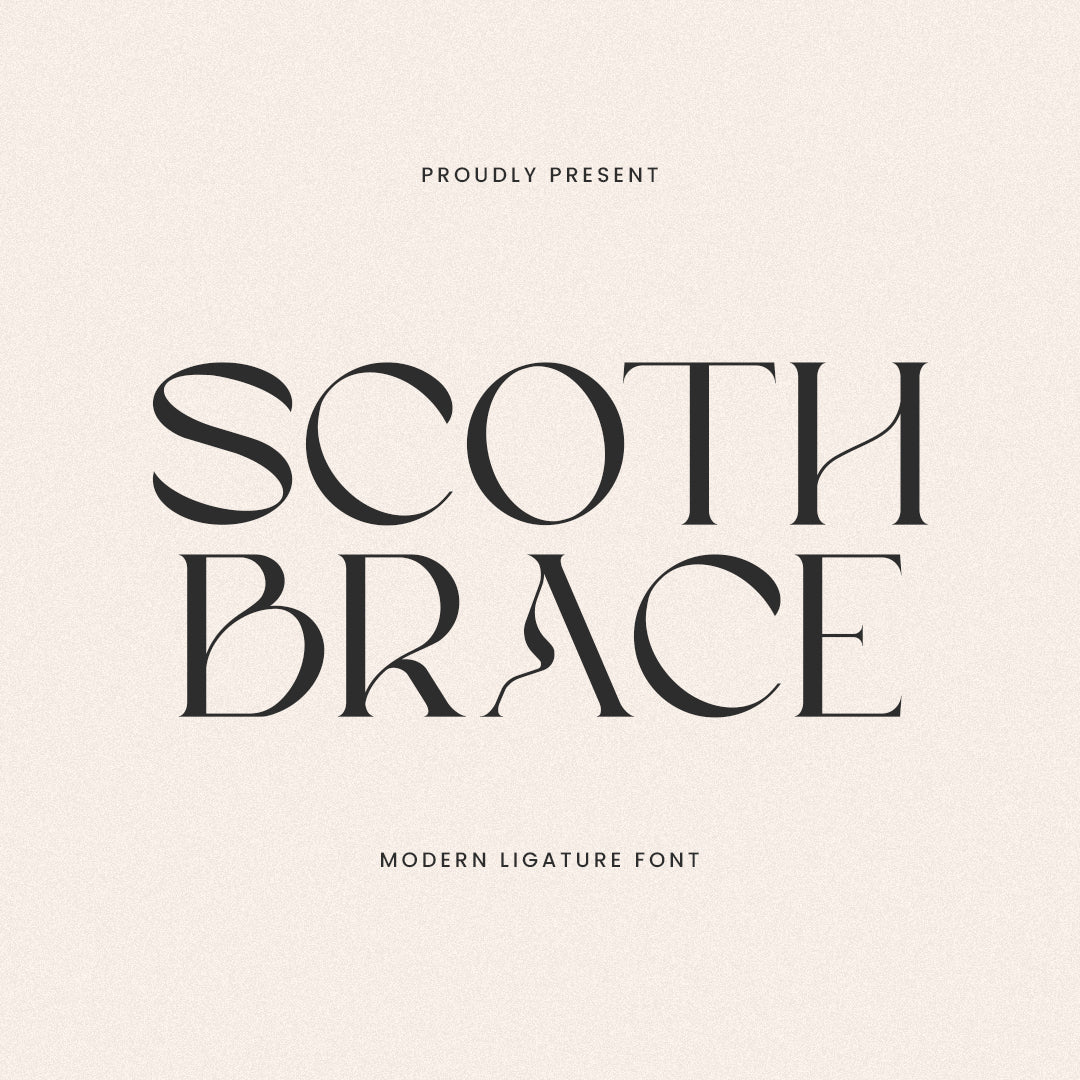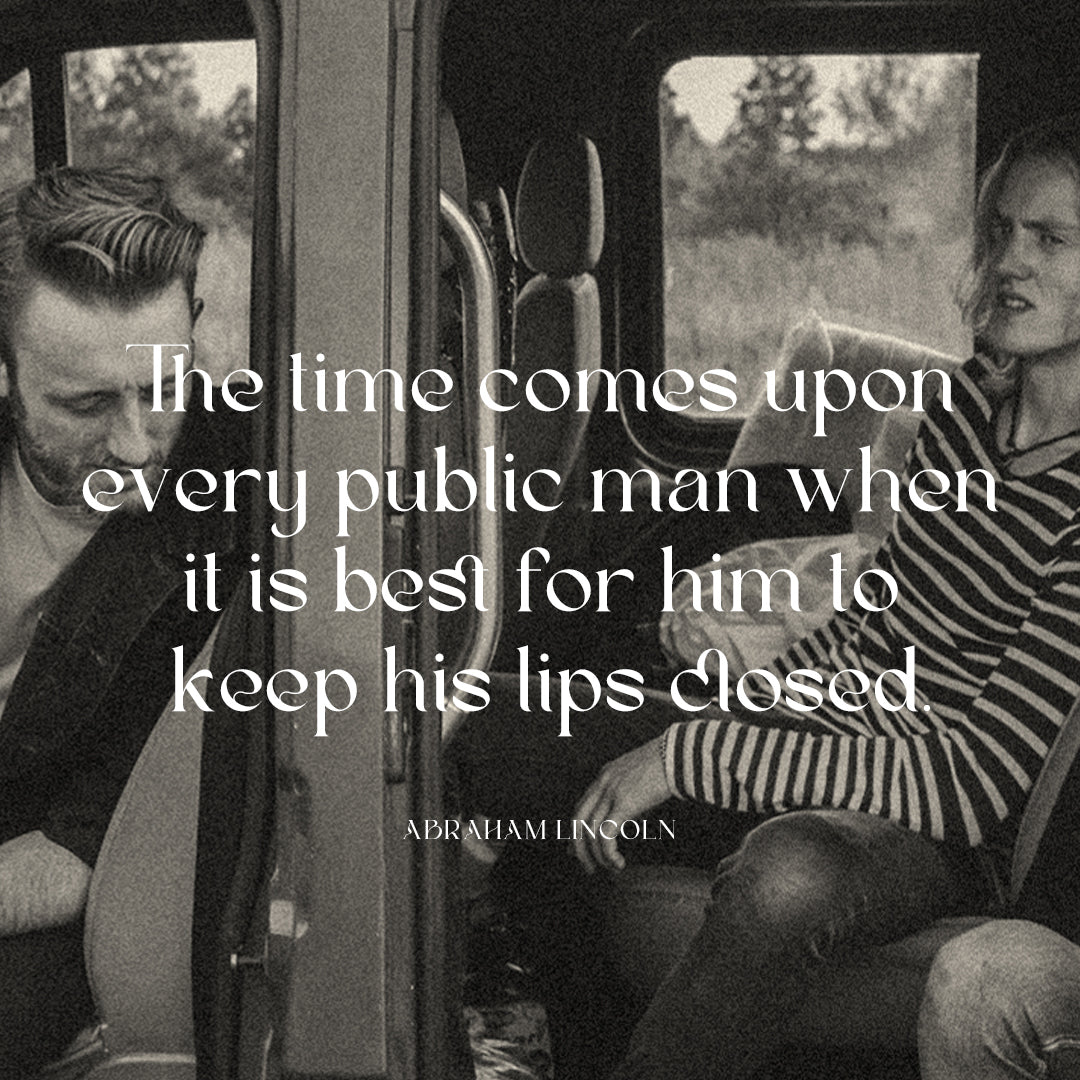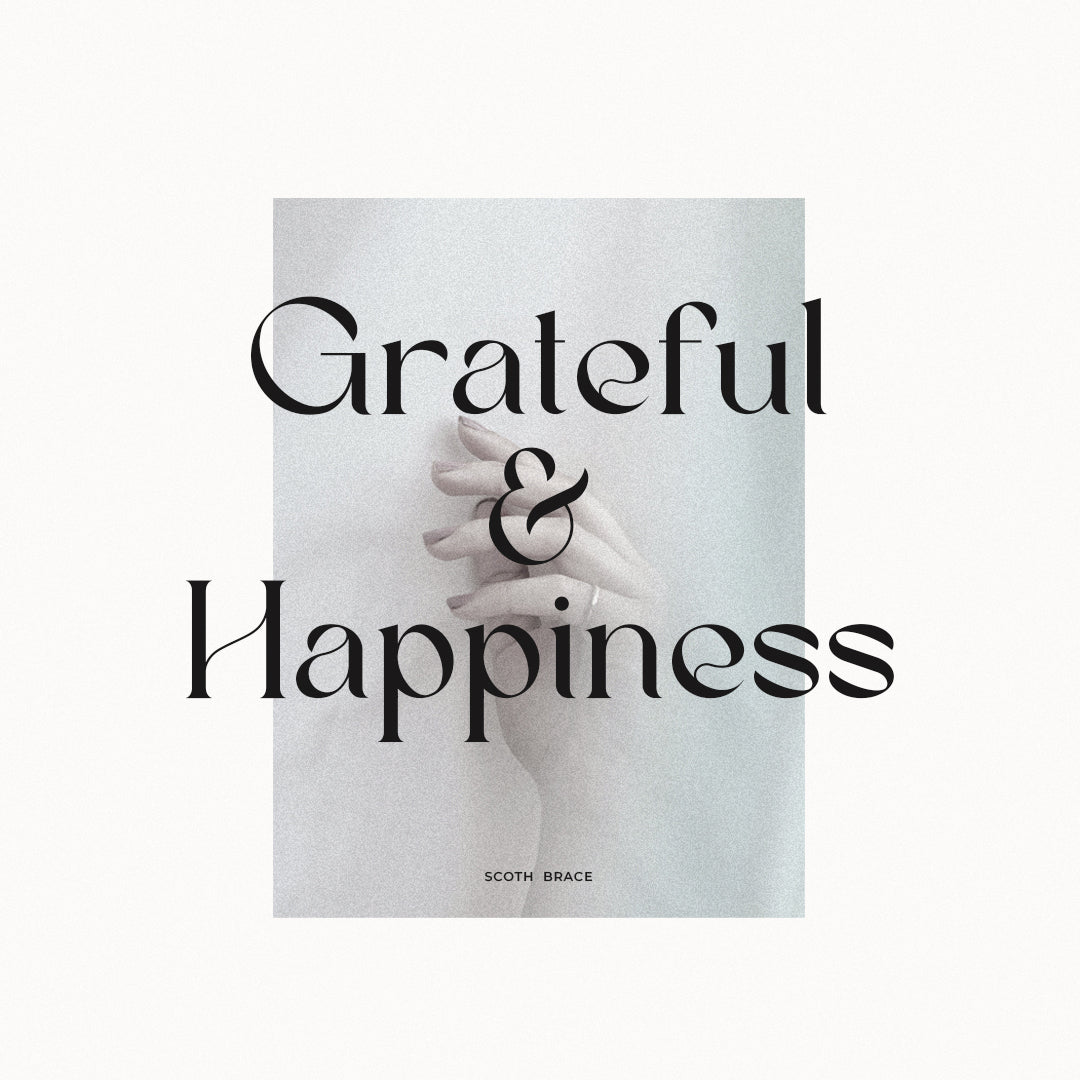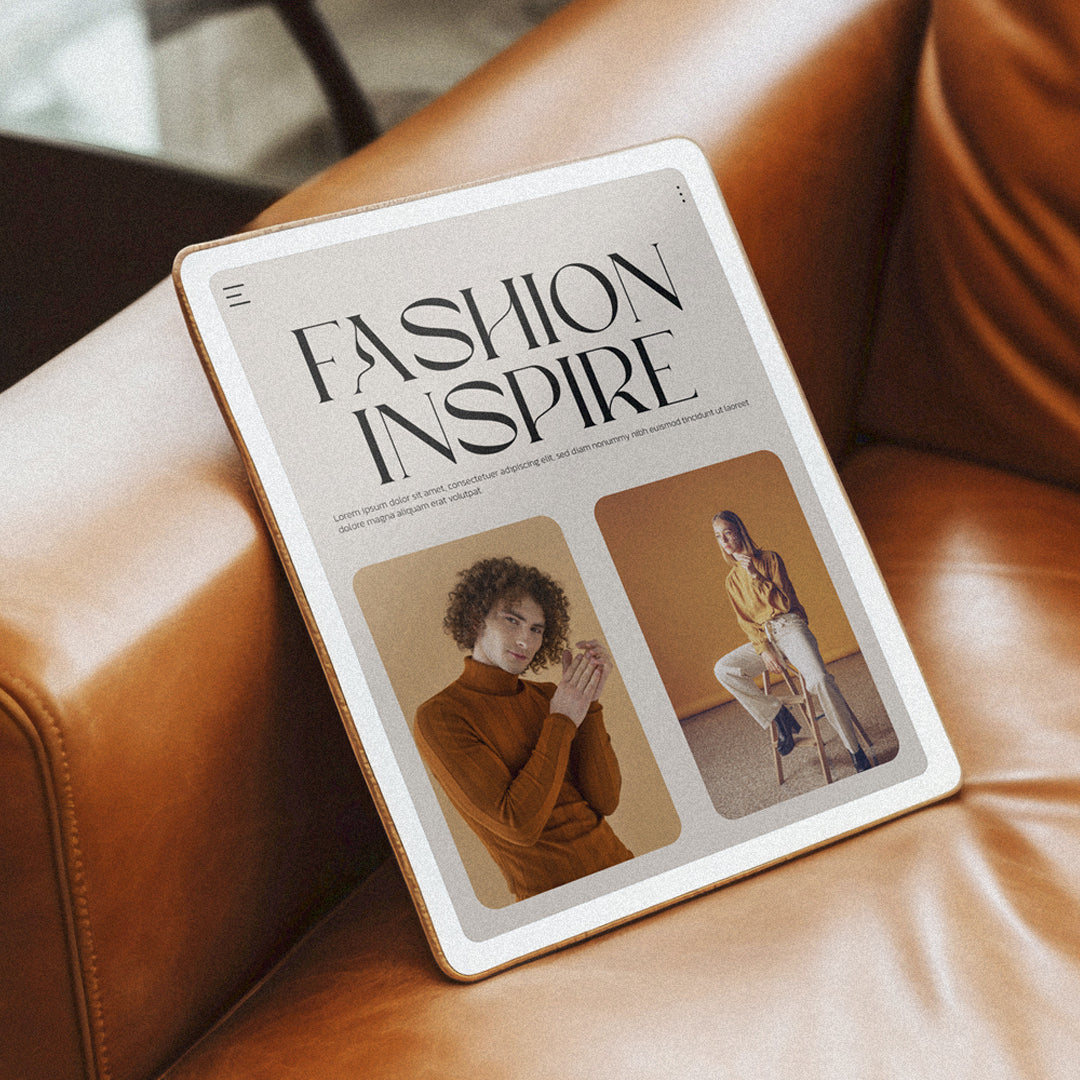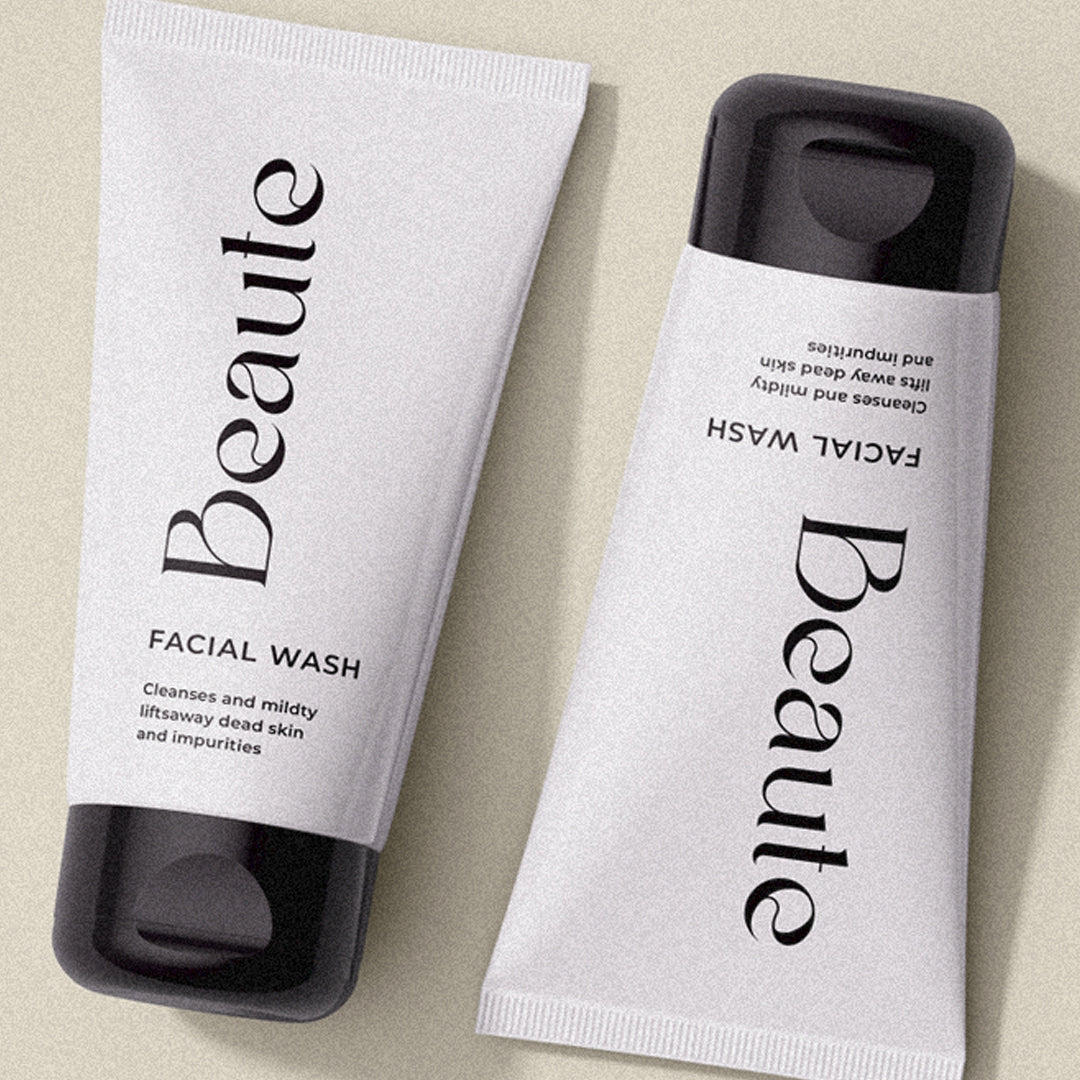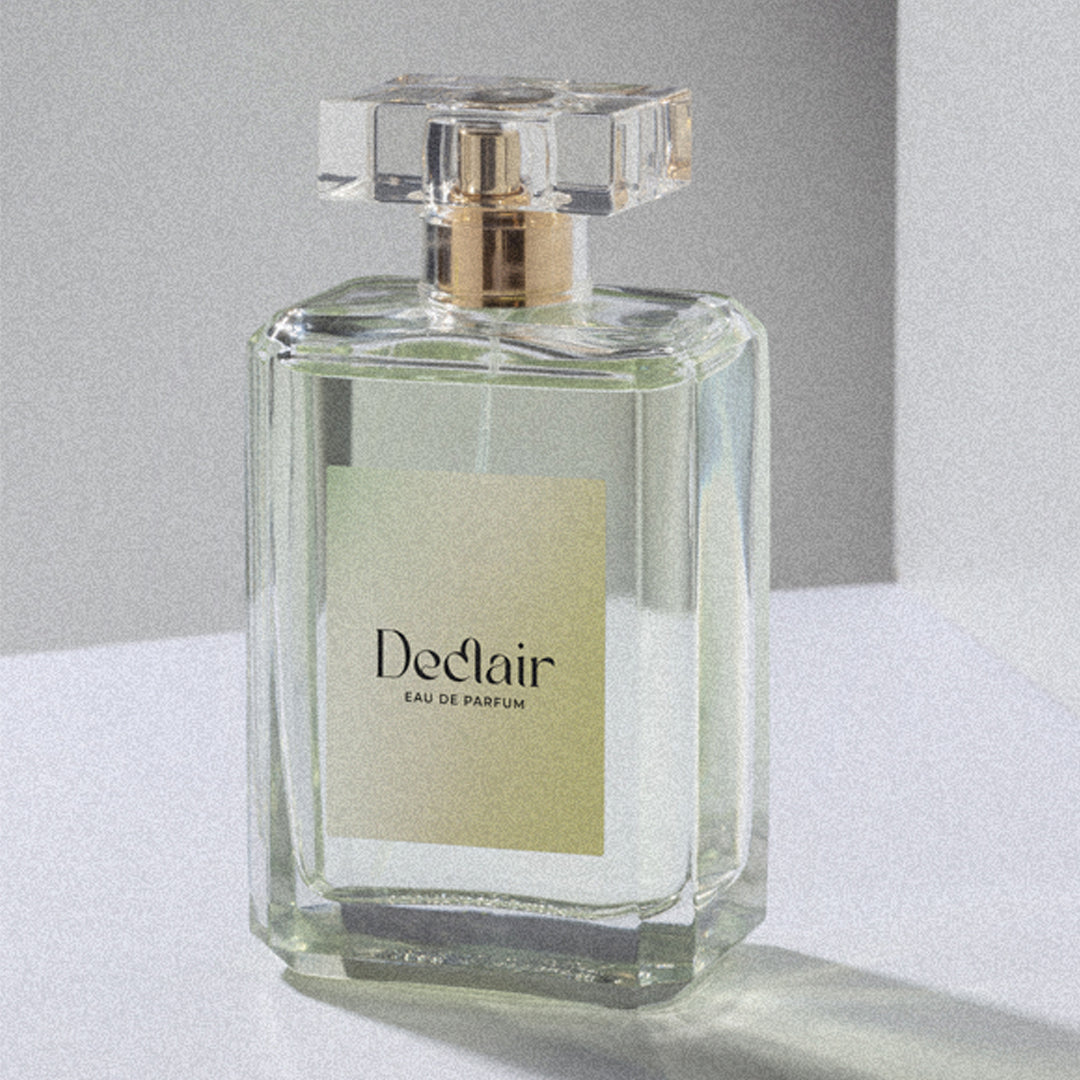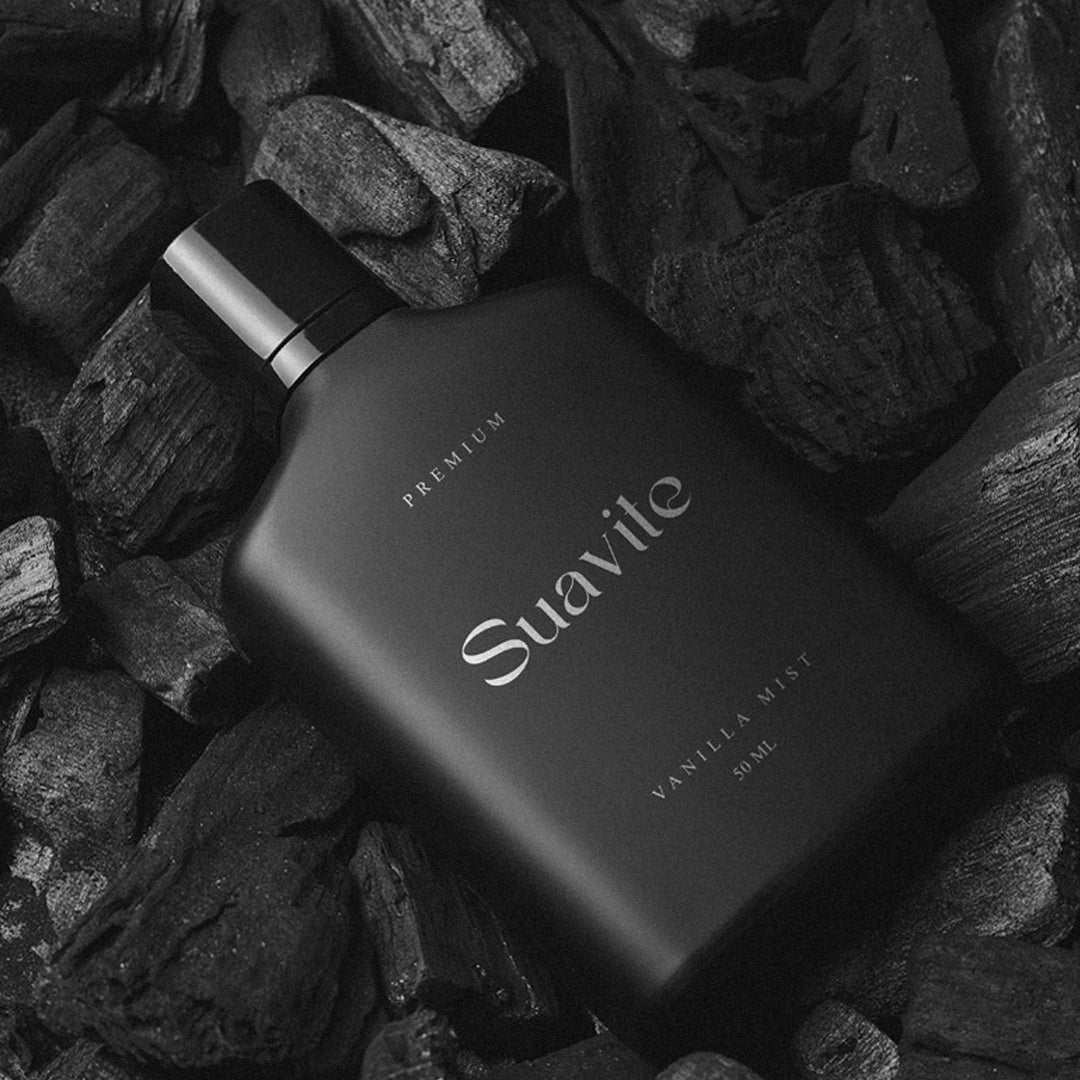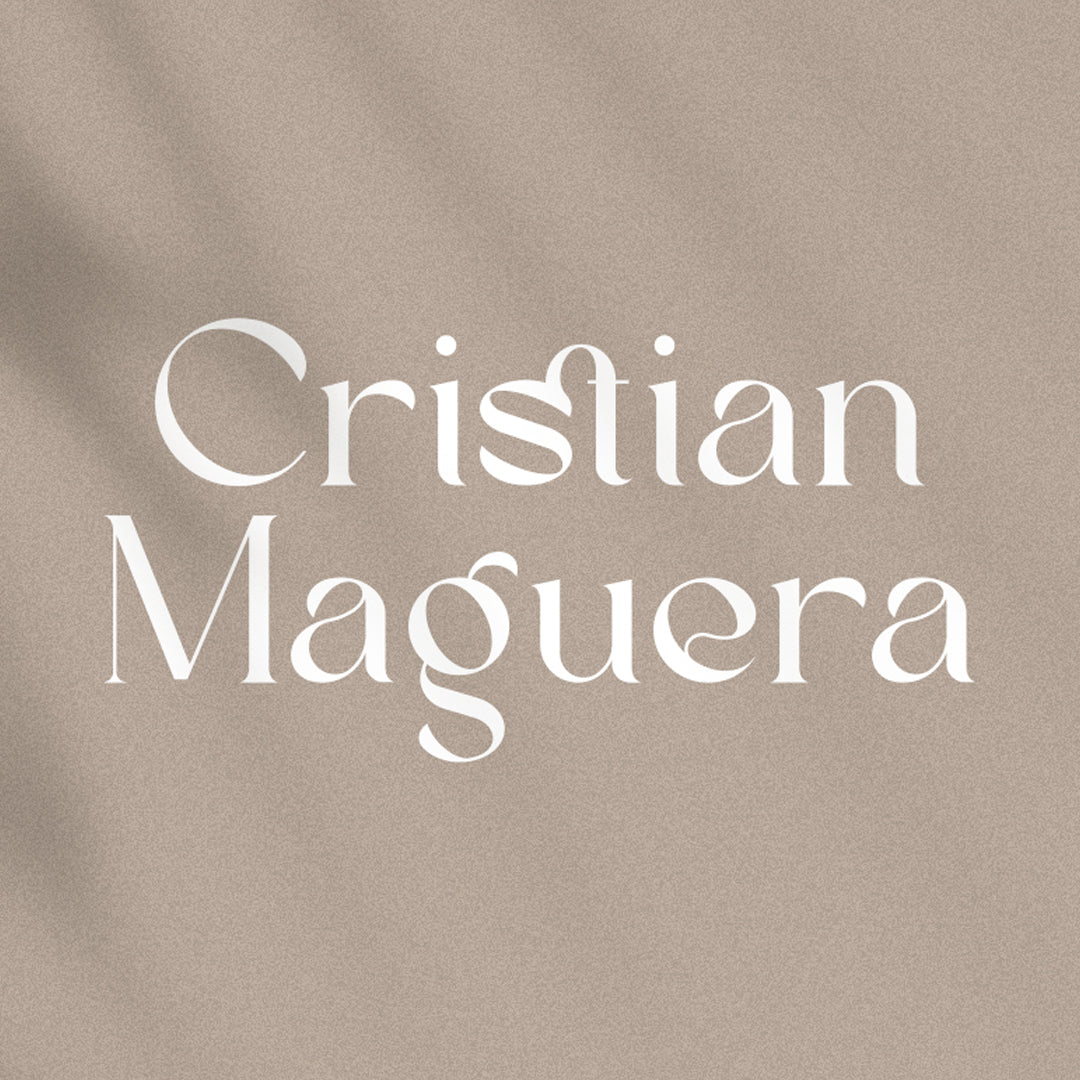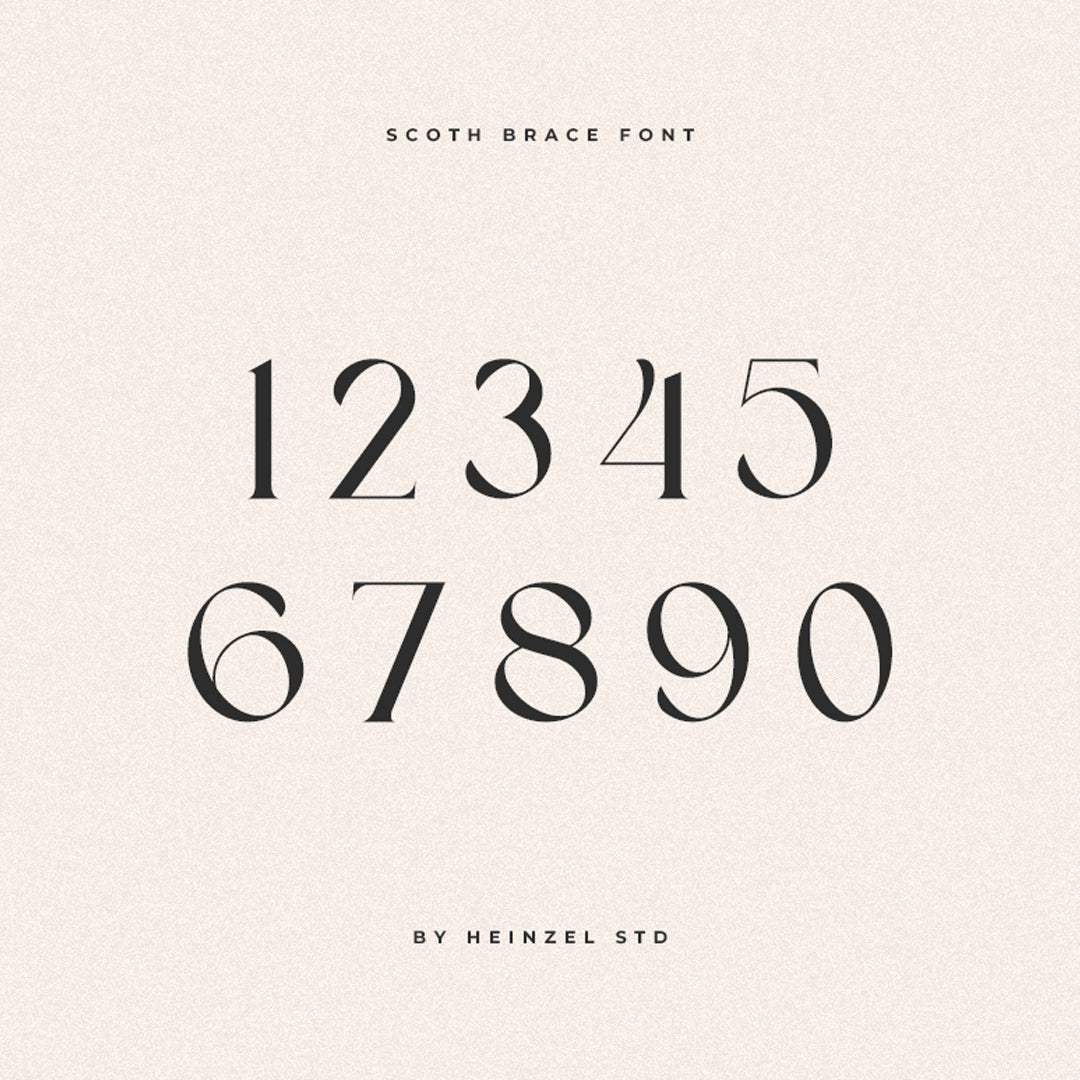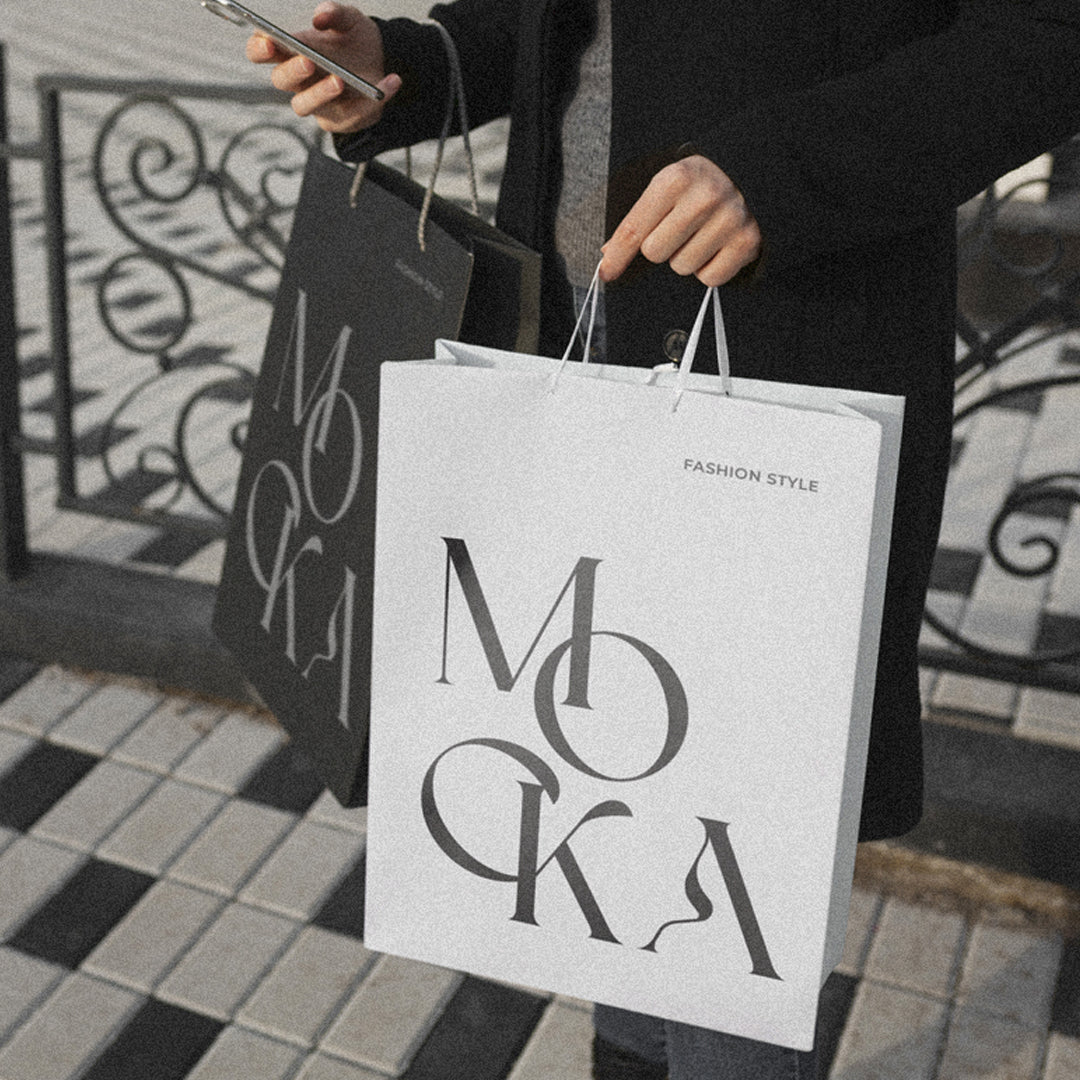
Scoth Brace Ligature Serif Font
Scoth Brace is a sophisticated modern ligature serif font that combines timeless elegance with contemporary artistic details. Designed with graceful letterforms, refined contrast, and distinctive ligatures, this typeface creates a luxurious and high-end visual identity for branding, editorial design, fashion campaigns, wedding invitations, packaging, and premium logos.
Its unique character alternates and artistic ligature connections add personality while maintaining excellent readability. With over 300 glyphs, multilingual support, and an italic version included, Scoth Brace offers versatility for designers seeking a stylish serif font that stands out in both print and digital projects.
Whether you're creating luxury branding, magazine headlines, beauty product packaging, or social media content, Scoth Brace delivers a modern aesthetic with a touch of classic sophistication.
Scoth Brace is a modern ligature serif font featuring graceful letterforms, refined contrast, and distinctive character alternates. It includes over 300 glyphs, multilingual support, and an italic version.